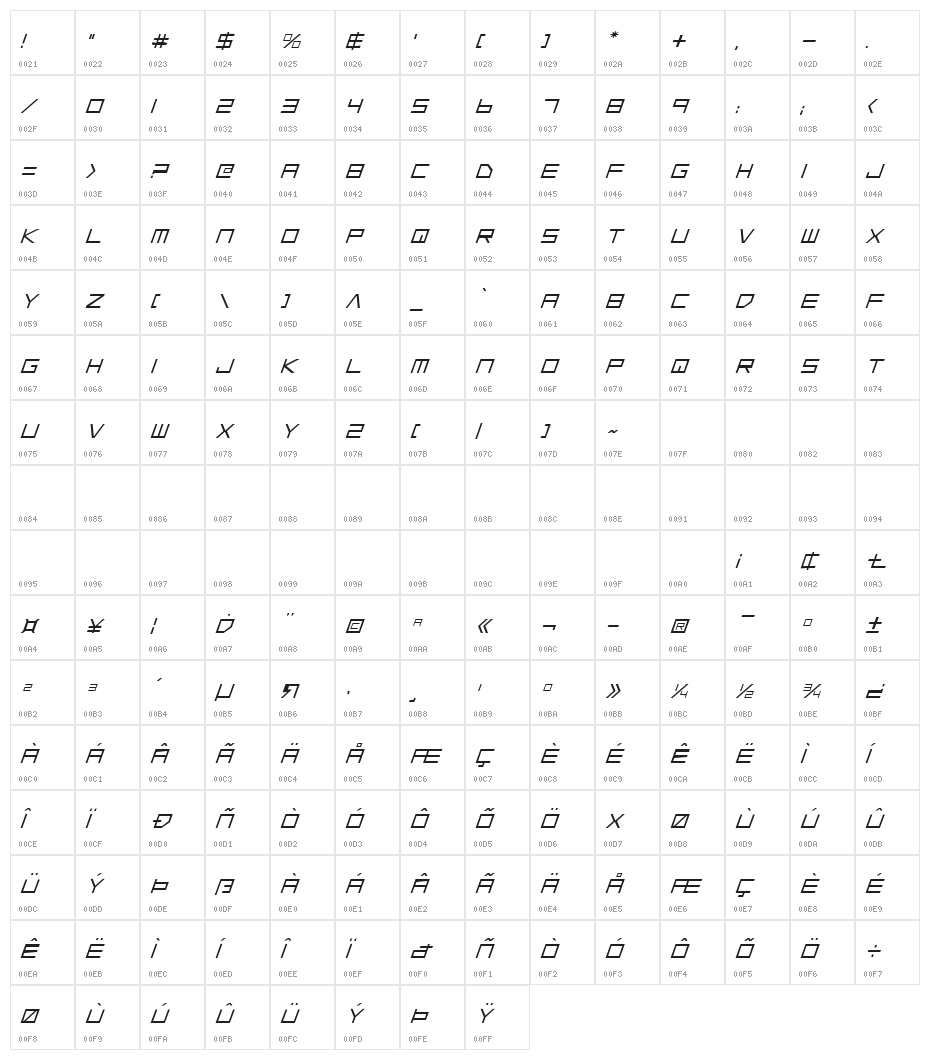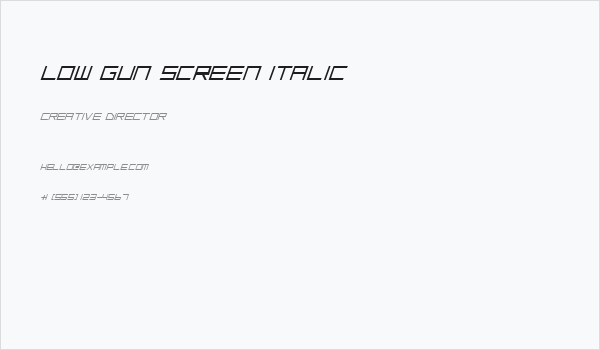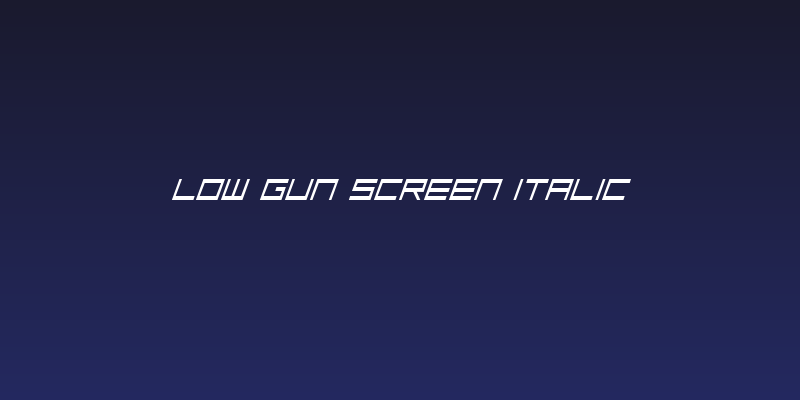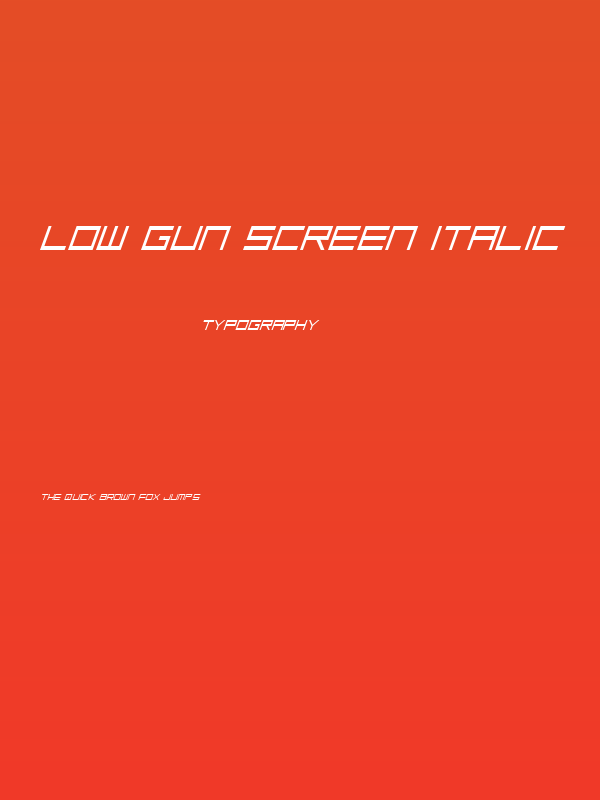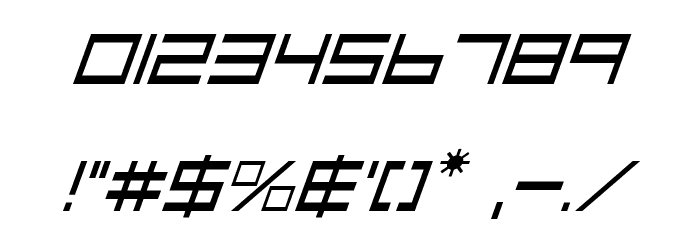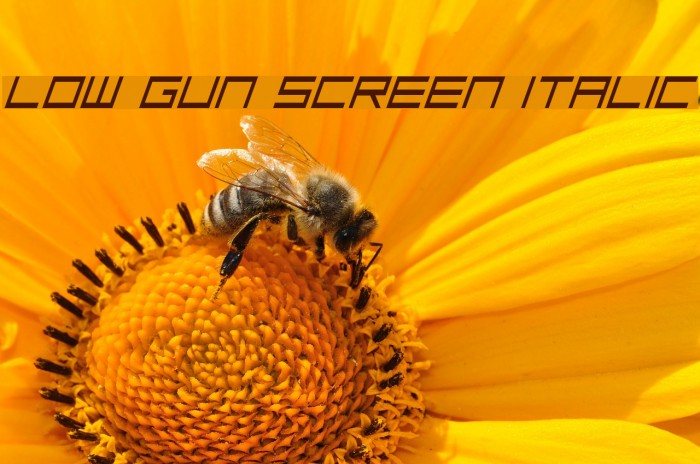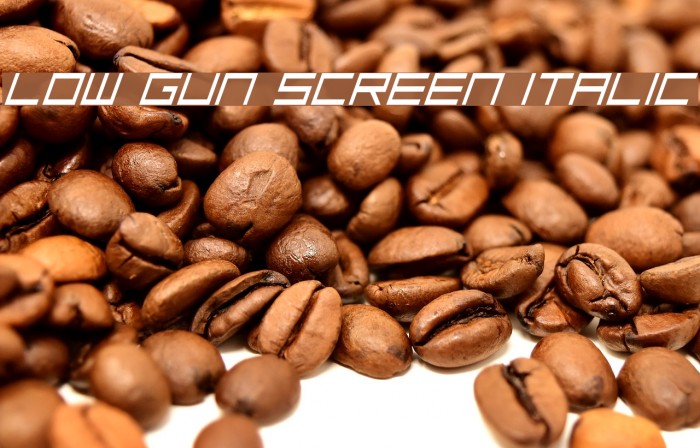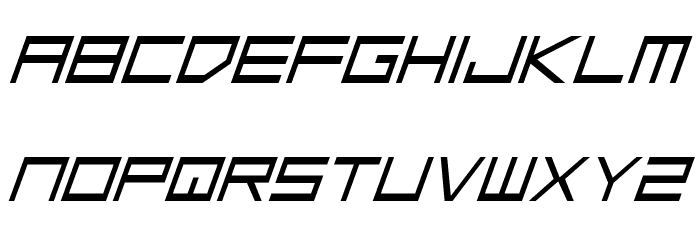
Low Gun Screen Italic Font
Low Gun Screen Italic Description
This font features a futuristic and angular design, characterized by its sharp edges and slanted orientation. The uppercase letters are bold and dynamic, with a consistent slant that gives a sense of motion and speed. The lowercase letters maintain this angular style, providing a cohesive look throughout the typeface. Numbers and special characters are designed to match the overall aesthetic, making them suitable for a variety of uses. The font's unique style is perfect for projects that require a modern and edgy appearance.
| Proposed Projects | Ideal for sci-fi themed designs, video game graphics, tech branding, and modern posters. |